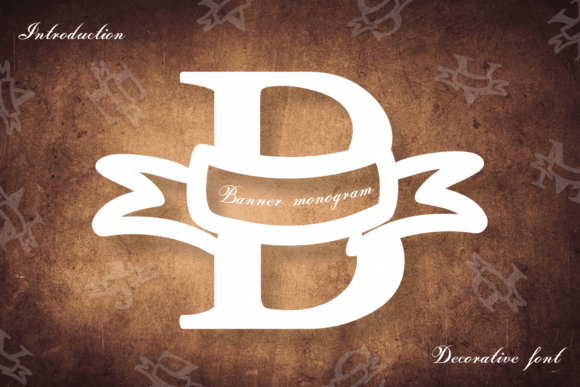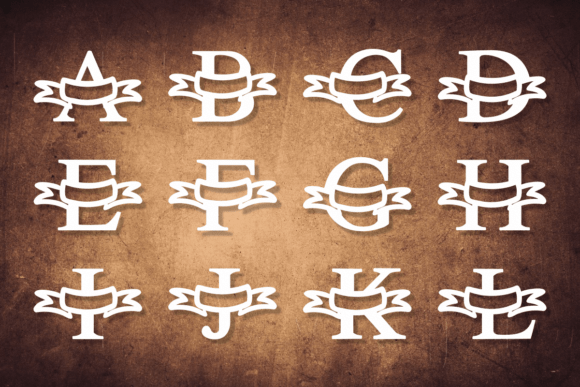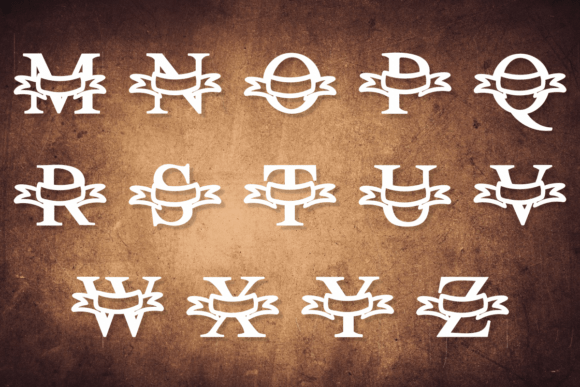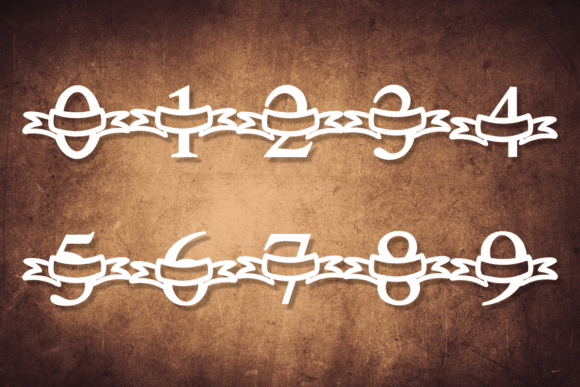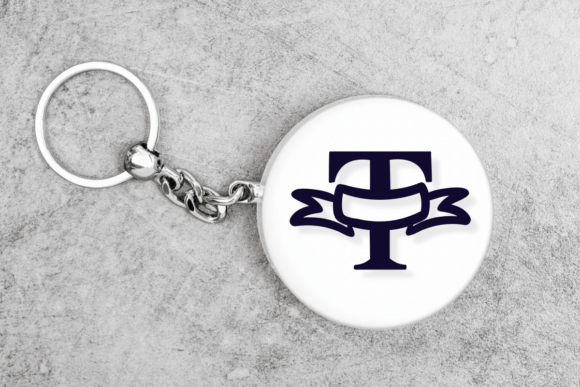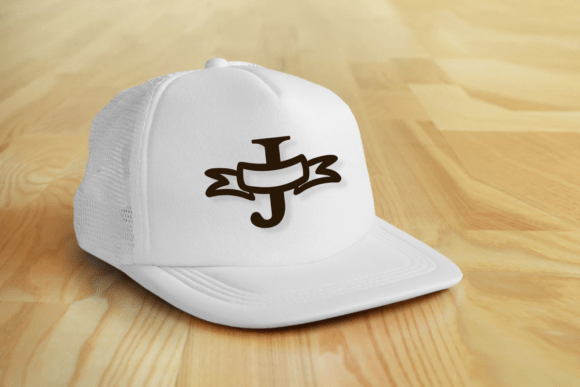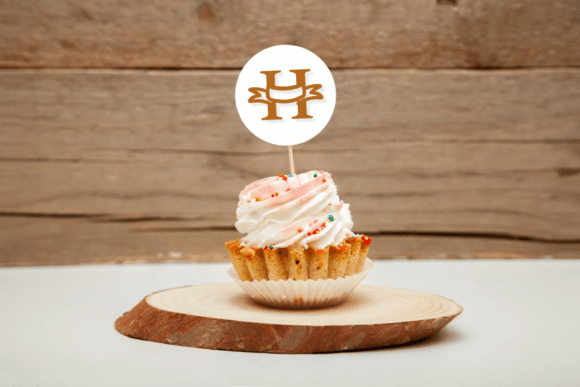
Unleash Your Creativity with the Banner Monogram Font
| 👤 Author | Chonada |
That’s where the Banner Monogram Font comes in – a beautiful, decorative font that’s perfect for adding a personal touch to your projects. Whether you’re taking notes, writing a diary, or creating greeting cards, this font is sure to make your content stand out. As a designer, you’ll appreciate the versatility of the Banner Monogram Font, which can be used for a wide range of designs, from banners and social media posts to mugs and stationery.
Banner Monogram Font Key Features
- Unique Characteristic: The font features intricate, hand-drawn monogram designs that can be customized with various initials.
- Monogram Customization: Includes 26 uppercase and 26 lowercase letter combinations, as well as 10 punctuation marks, to create unique monograms.
- Font Weight: Available in Light, Regular, and Bold weights, allowing for versatility in design applications.
Banner Monogram Font Review
Overall, I think the Banner Monogram Font is a decent choice for creating personalized banners or monograms. ✨ It’s easy to use and comes with a wide range of styles to suit different tastes and themes. The font is highly customizable, allowing you to adjust the size, color, and spacing to fit your design needs.
One of the things I like about this font is its versatility. It can be used for various purposes, from wedding invitations to sports team logos. ✨ The font is also relatively easy to read, even at smaller sizes, which makes it a great choice for signage or promotional materials.
- ⚠️ Limited character set: The font only includes uppercase letters and a few special characters, which can be limiting for more complex designs.
- ⚠️ Not ideal for body text: While the font is great for headlines and titles, it’s not the best choice for large blocks of text due to its decorative nature.
- ⚠️ May require additional formatting: Depending on the design software you’re using, you may need to adjust the font settings or add additional formatting to get the desired look.
Overall, I think the Banner Monogram Font is a solid choice for designers looking to add a touch of personality to their projects. While it may have some limitations, its ease of use and customizability make it a great option for a variety of design applications.
Use the Banner Monogram Font in combination with other design elements, such as images and shapes, to create a visually appealing banner. Experiment with different font sizes and styles to create a unique look. Use the font to highlight important information, such as names or logos.
The Banner Monogram Font is commonly used for creating custom banners, invitations, and announcements. It’s also used for branding and marketing materials, such as business cards and brochures.